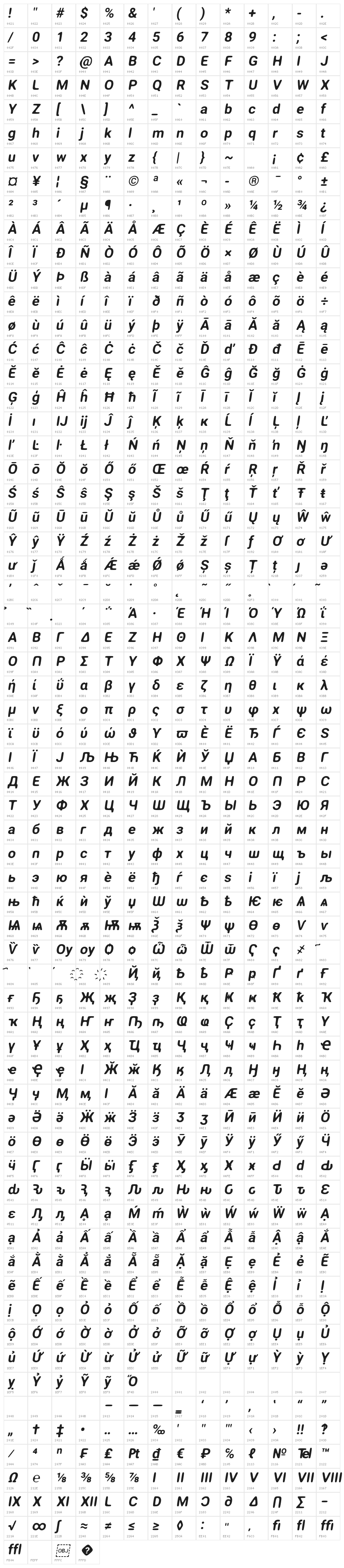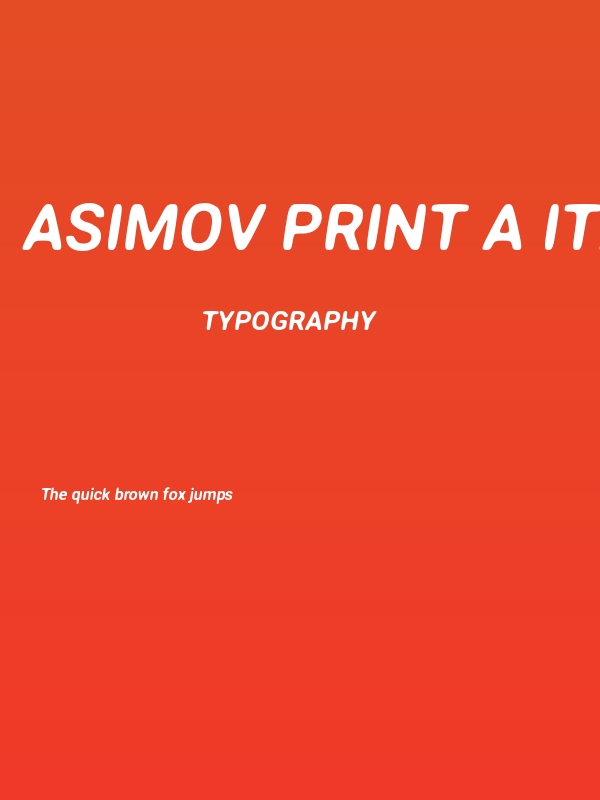
Asimov Print A Italic Font
Asimov Print A Italic Description
This font features a modern and sleek design with rounded edges and a smooth, flowing style. The italicized form adds a sense of motion and dynamism, making it suitable for contemporary and forward-thinking projects. The characters are well-proportioned, with a consistent stroke width that offers a balanced and harmonious appearance. The numerals and special characters maintain the same aesthetic, ensuring uniformity across all text elements. Its readability and stylish look make it versatile for various applications.
| Use Case | Headlines, Logos, Digital Media |
| Proposed Projects | Ideal for branding, advertising, digital media, and editorial design where a modern and dynamic look is desired. |